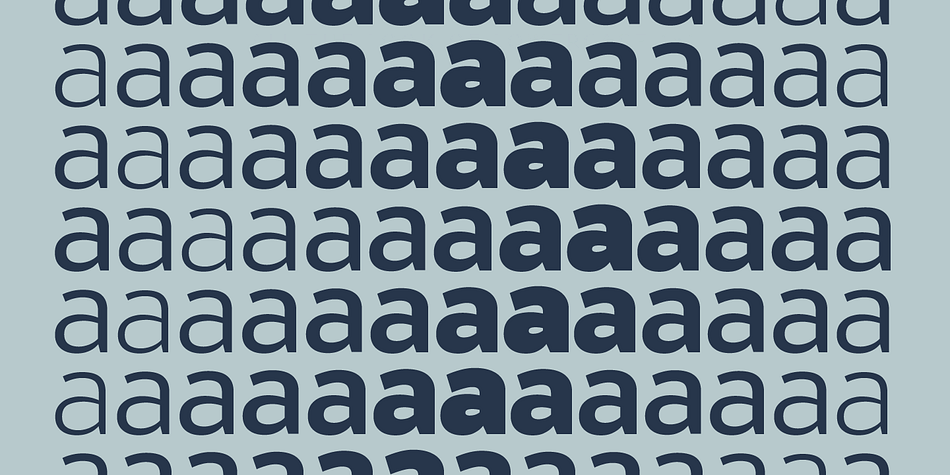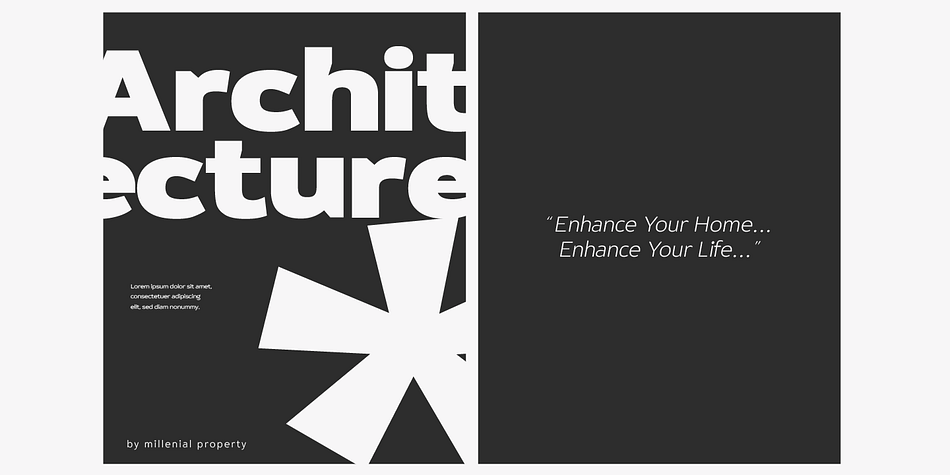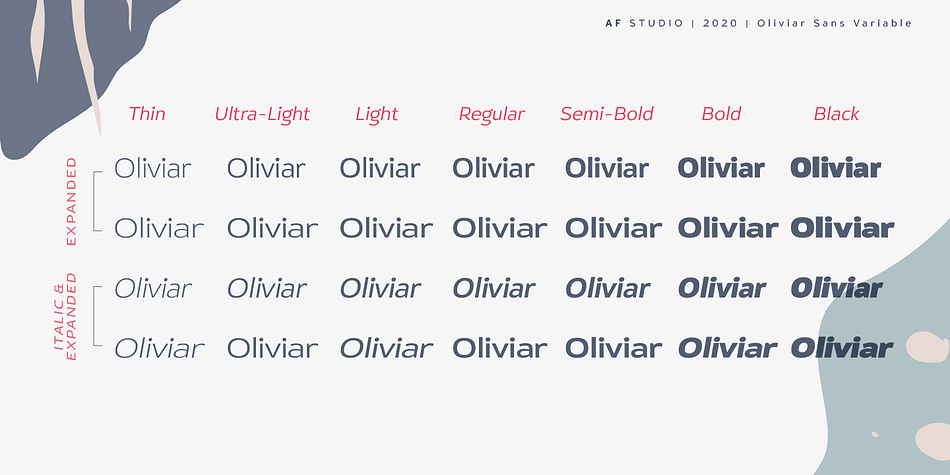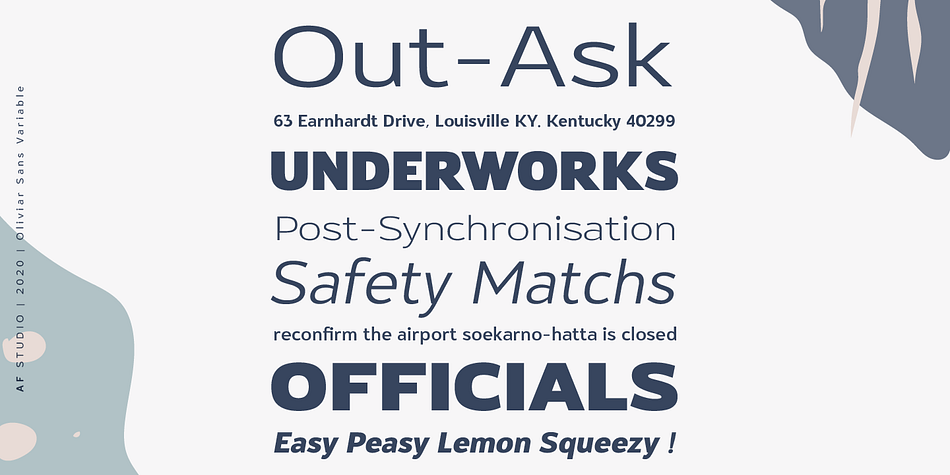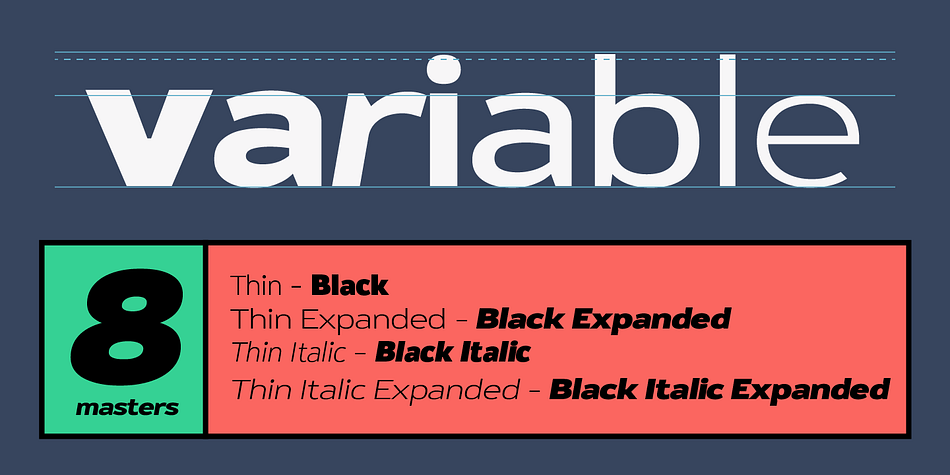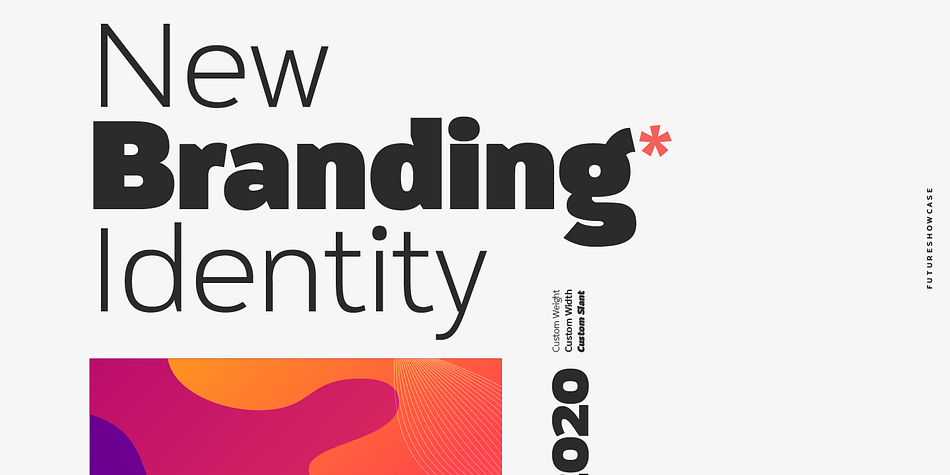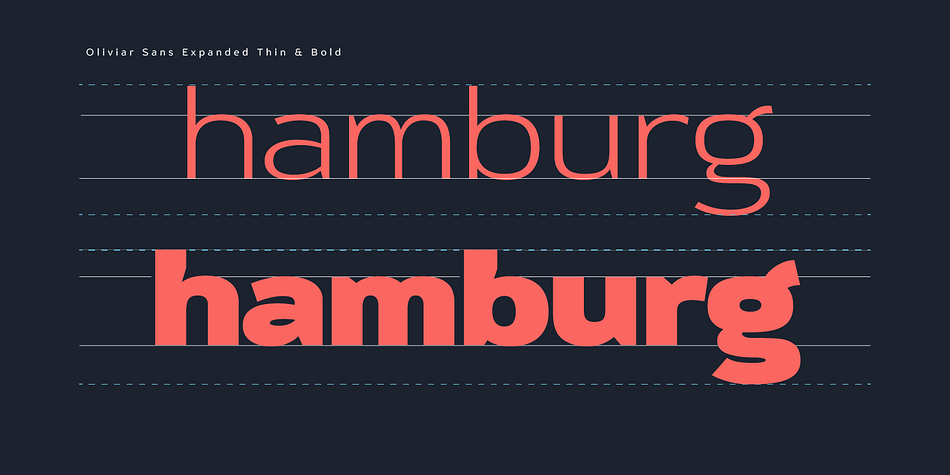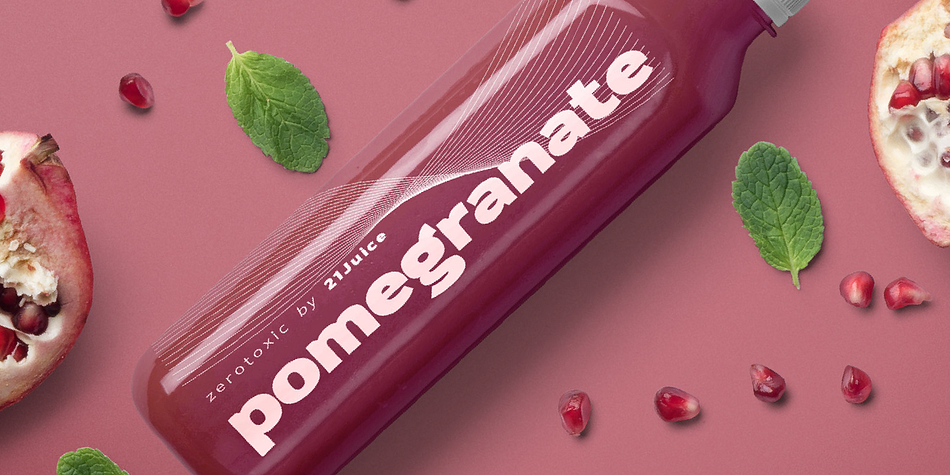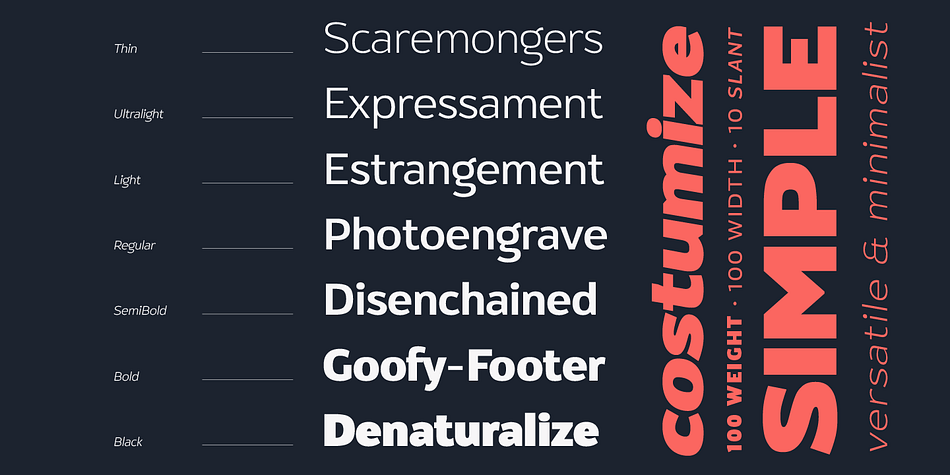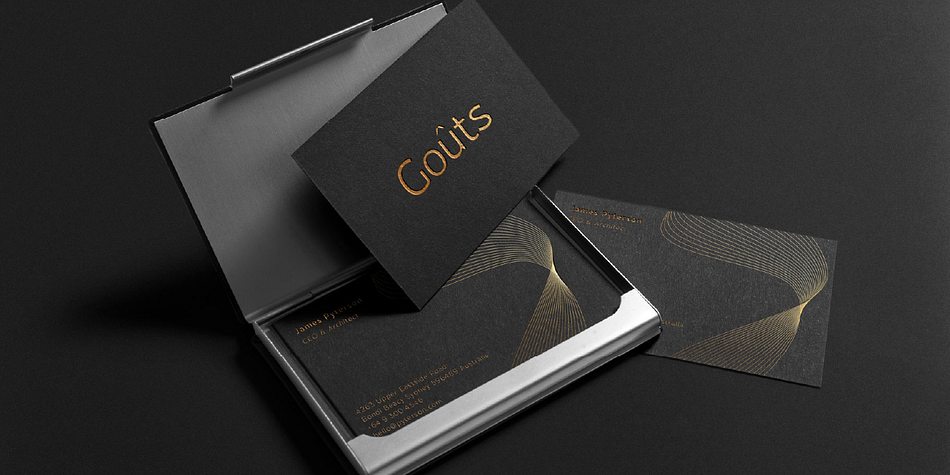
Oliviar
Oliviar is a sans serif font family. This typeface has twenty-nine styles and was published by AF Studio.
A New Sans Serif Variable Fonts !
Oliviar Sans Oliviar is a modern sans serif with Grotesque touch. Inspired by a Geometrical fonts and also Humanist Sans serif. Created with 8 Masters that export to the traditional OTF to 28 Styles!. On the Applications that support variable fonts such as Adobe Illustrator & Photoshop, you can get more than only 28, you can customize the Weight, Width and Slant. Weight created from Thin (100) to Bold (900), Width created from Standard (100) to Expanded (900) and Slant based on degree angle from 1˚ to 10˚. There is a new slider icons for accessing this features Check on Last Display Image. Another advantage on the Variable fonts are you just need 1 files to install to your computer and it will install all the styles available.